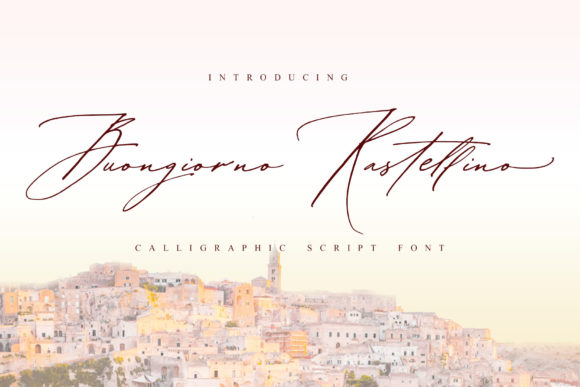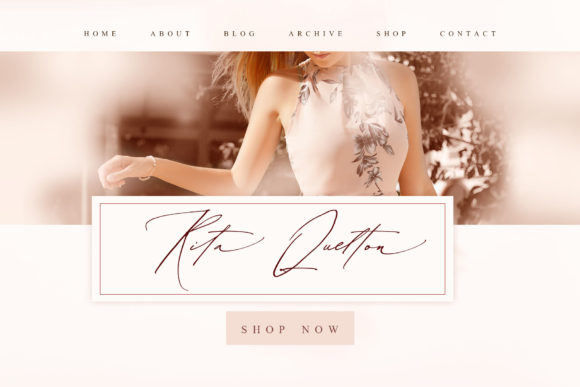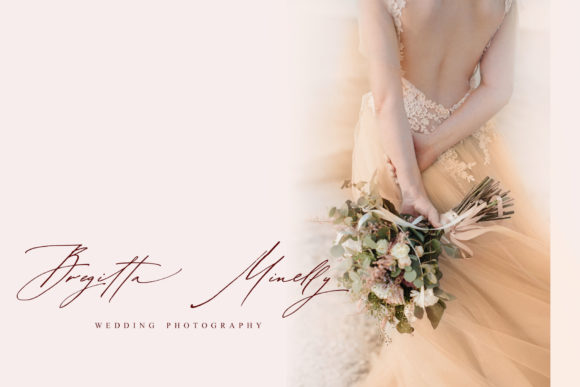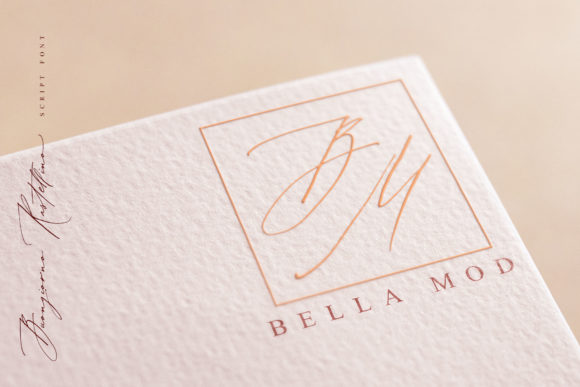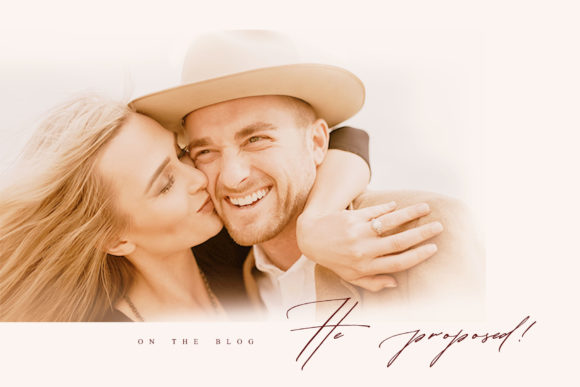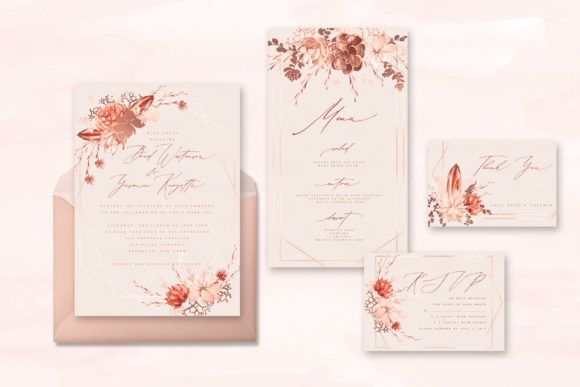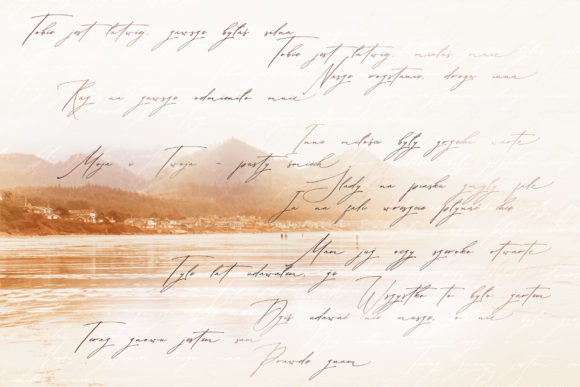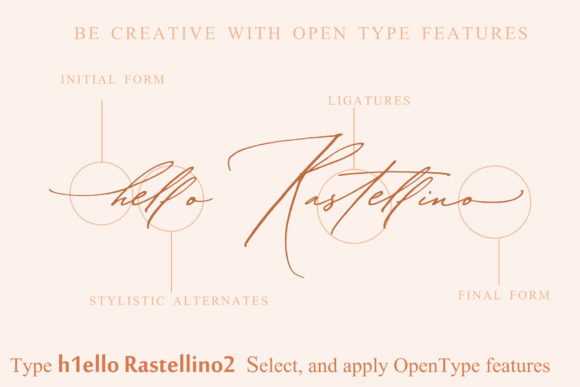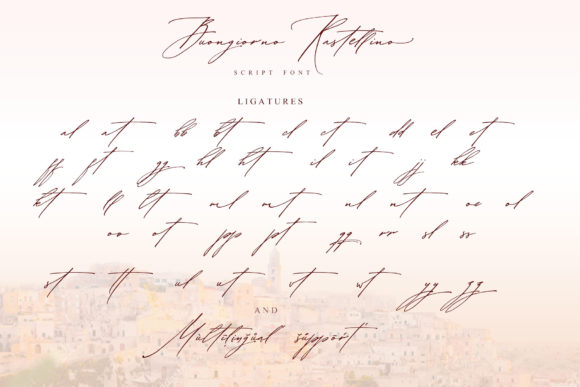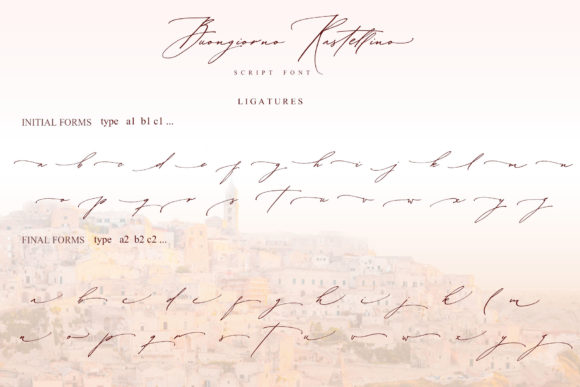
Buongiorno Rastellino Font
About Buongiorno Rastellino Font
Buongiorno Rastellino is an elegant, delicate and graceful calligraphic handwritten script font. It will add a simple feel to any crafts idea!